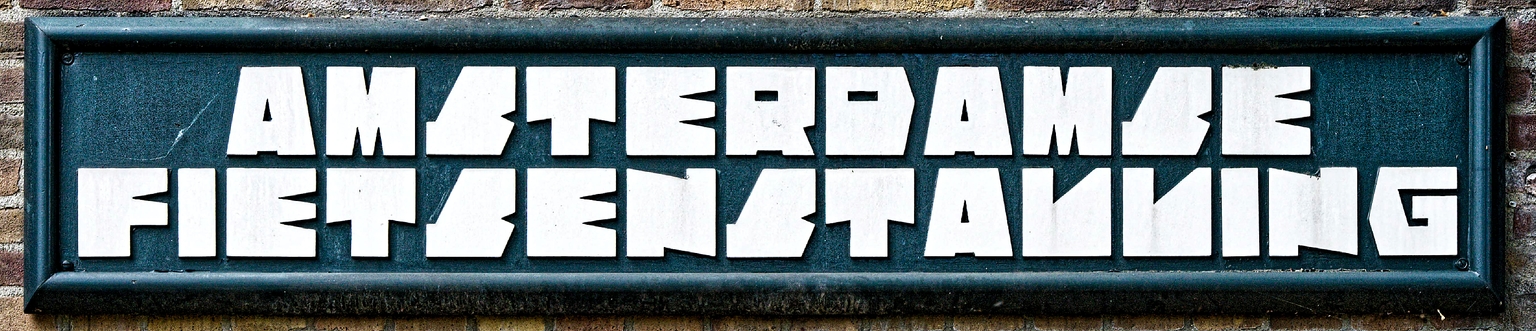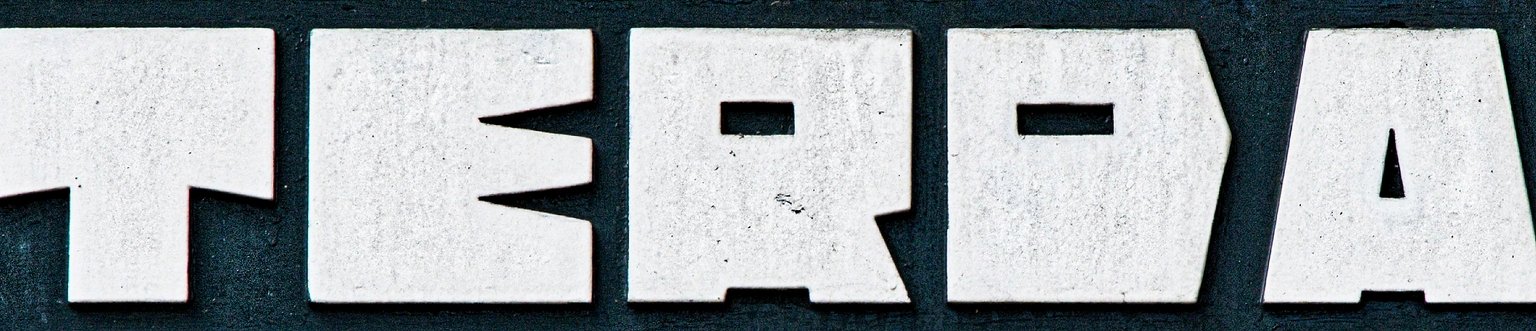
Bolk
Bolk is a compact, expressive display typeface designed by Ramiro Espinoza and inspired by the striking Amsterdamse Fietsenstalling sign located on an apartment complex on De Lairessestraat in Amsterdam. The original lettering, with its solid construction and geometric flair, is a powerful example of the Amsterdamse School’s influence on vernacular typography—where architecture and graphic form meet in bold, sculptural harmony.
With Bolk, Espinoza translates the spirit of this unique sign into a contemporary typeface that retains its architectural weight and raw charm. Its compact proportions, minimal stroke contrast, and assertive presence make it a strong choice for packaging, websites, posters, signage, and visual identities seeking a voice that’s both historic and modern.
Far from a literal revival, this new typeface reimagines the Amsterdamse School’s expressive ethos in typographic form—monumental, functional, and unmistakably characterful. Bolk invites designers to harness a piece of Amsterdam’s design heritage with confidence and style.